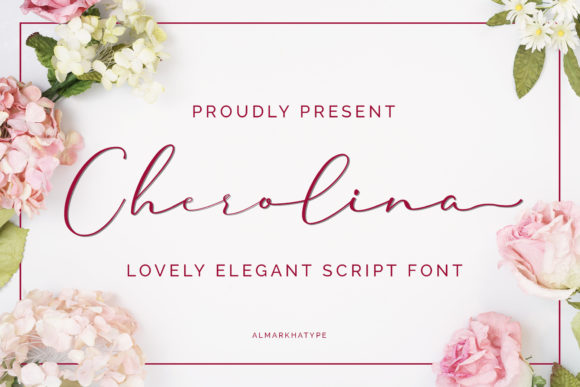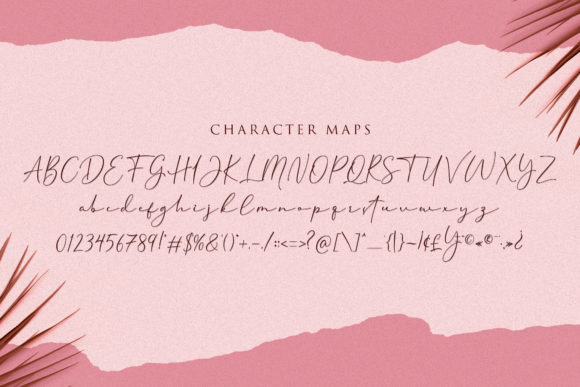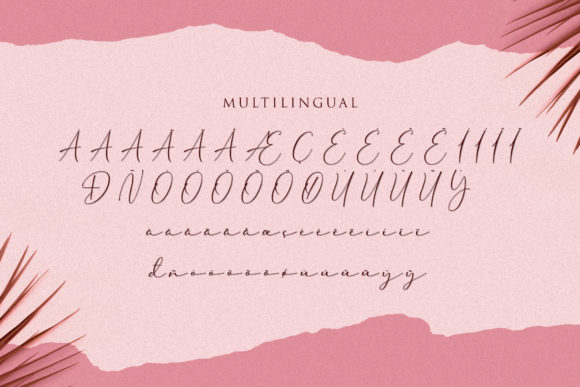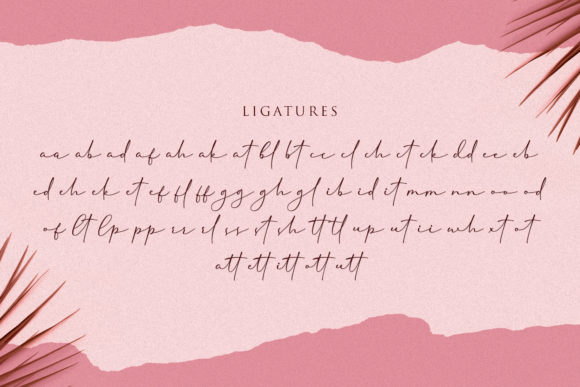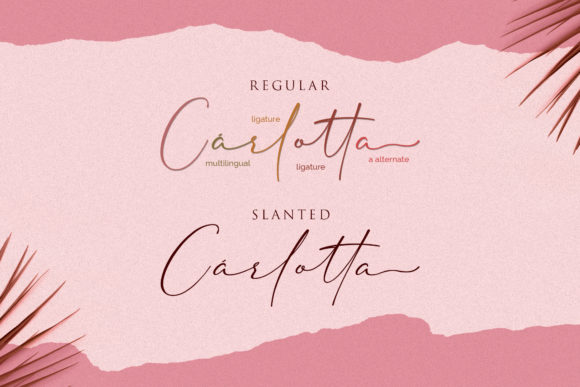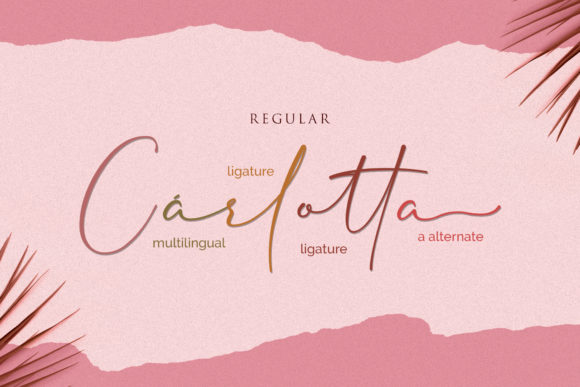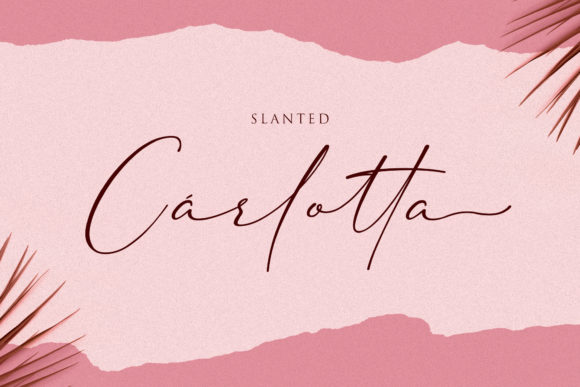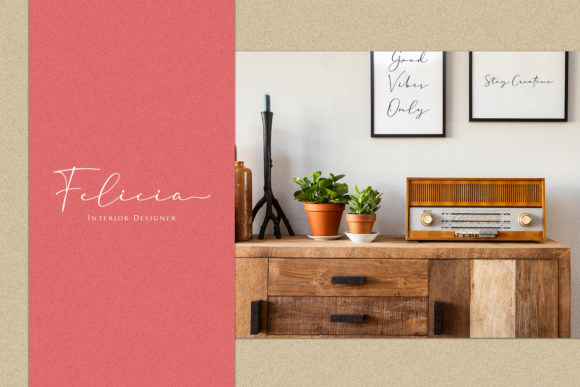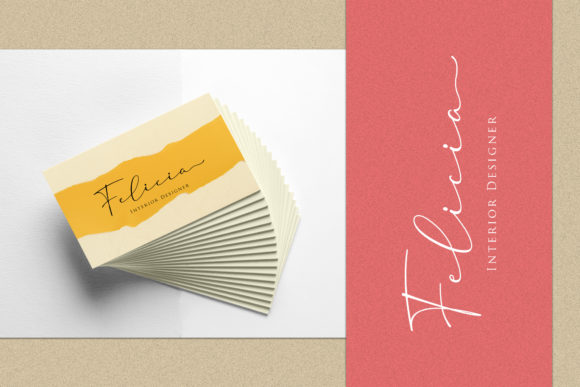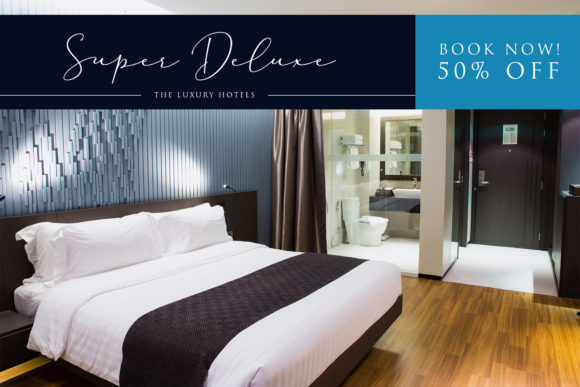
Cherolina Font
About Cherolina Font
Cherolina is fancy and elegant, but also incredibly authentic. This versatile script font has a wide range of applications ranging from greeting cards to headlines and is guaranteed to add a romantic feel to your next craft.
This font is PUA encoded which means you can access all of the beautiful glyphs and swashes with ease! It also features a wealth of special features including alternate glyphs and ligatures.